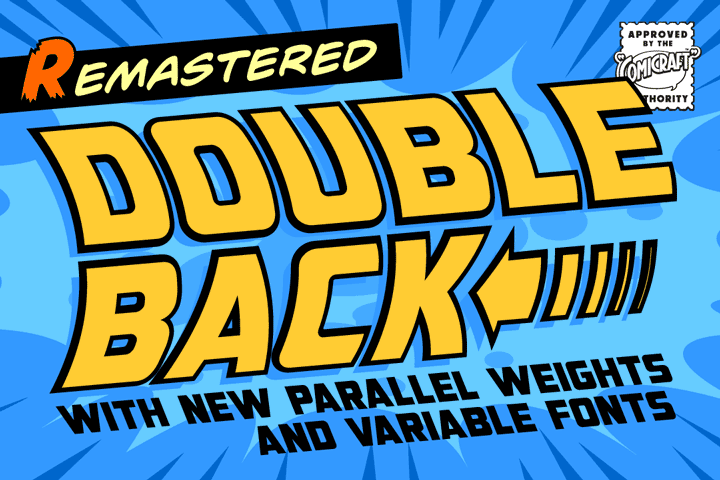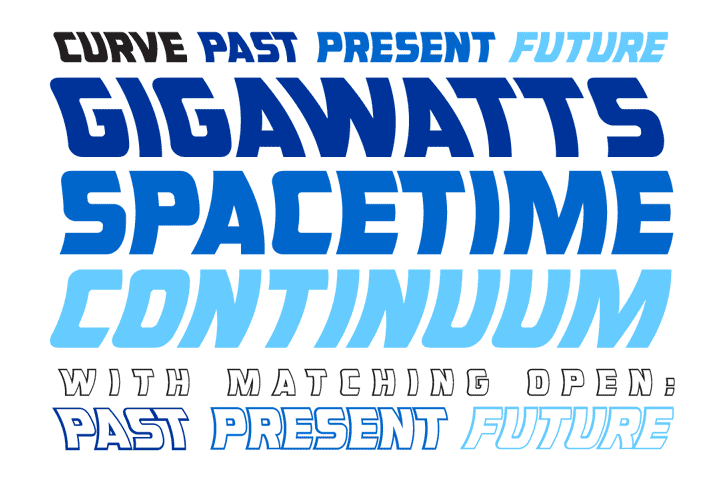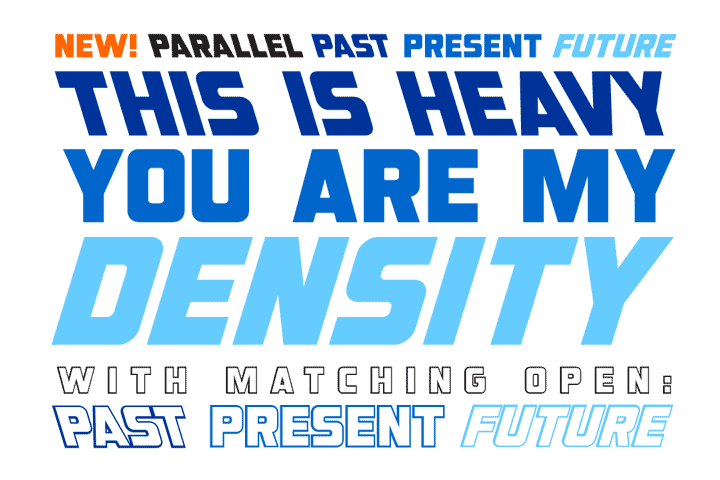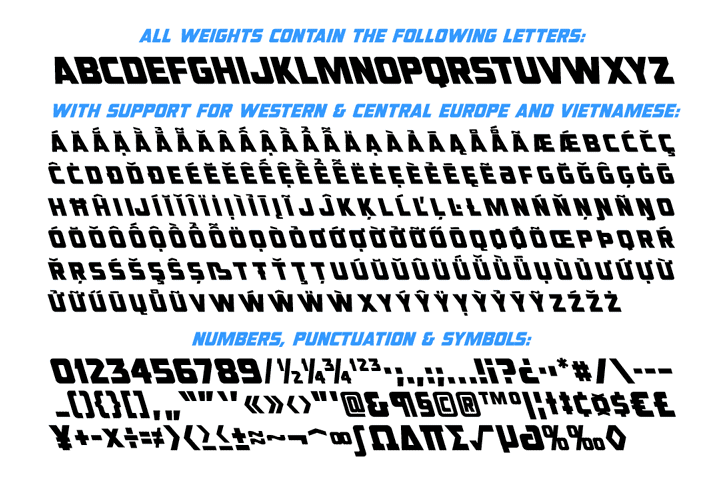
New!  Double Back
Great Scott, Marty! This font is your density, charged up to 1.21 gigawatts through the Power of Love!
Originally created by Comicraft for the official BACK TO THE FUTURE fan club, Remastered DOUBLEBACK has been rebuilt from the ground up, with a new vertical “Curve” weight, six new “Parallel” weights, stylistic alternate letters AMNUWY, and language support for Western & Central Europe and Vietnamese.
And if that weren't enough, we've traveled into the future and brought back Solid & Open Variable Fonts which provide precise control of Time and Warp!
• Twelve weights with uppercase alphabets
Languages: Complete Europe (221), Vietnamese
Plus: Stylistic alternates and Variable font with Time and Warp axes
Time-travel backwards, hit rewind, and do a double take with Double Back Font from Comic Book Fonts! Masterfully designed by John Roshell, this punchy, overlapping typeface brings dynamic motion and energetic retro flair straight to your creative canvas.
Are your heroes getting thrown into parallel dimensions, pulling off sneaky plot twists, or crashing back through time? This eye-catching, two-layer set acts as a wildly entertaining comic display font, perfect for punchy title cards, dramatic sound effects, and explosive chapter headers.
If you are hunting down the best comic book fonts to give your pages a playful, head-spinning pop, this versatile family equips you with solid, outline, and shadowed styles to create instant 3D magic. Drop these energetic, layered letterforms onto your superhero graphic novel covers, time-travel webcomics, or retro promotional posters to make your readers do a double take!